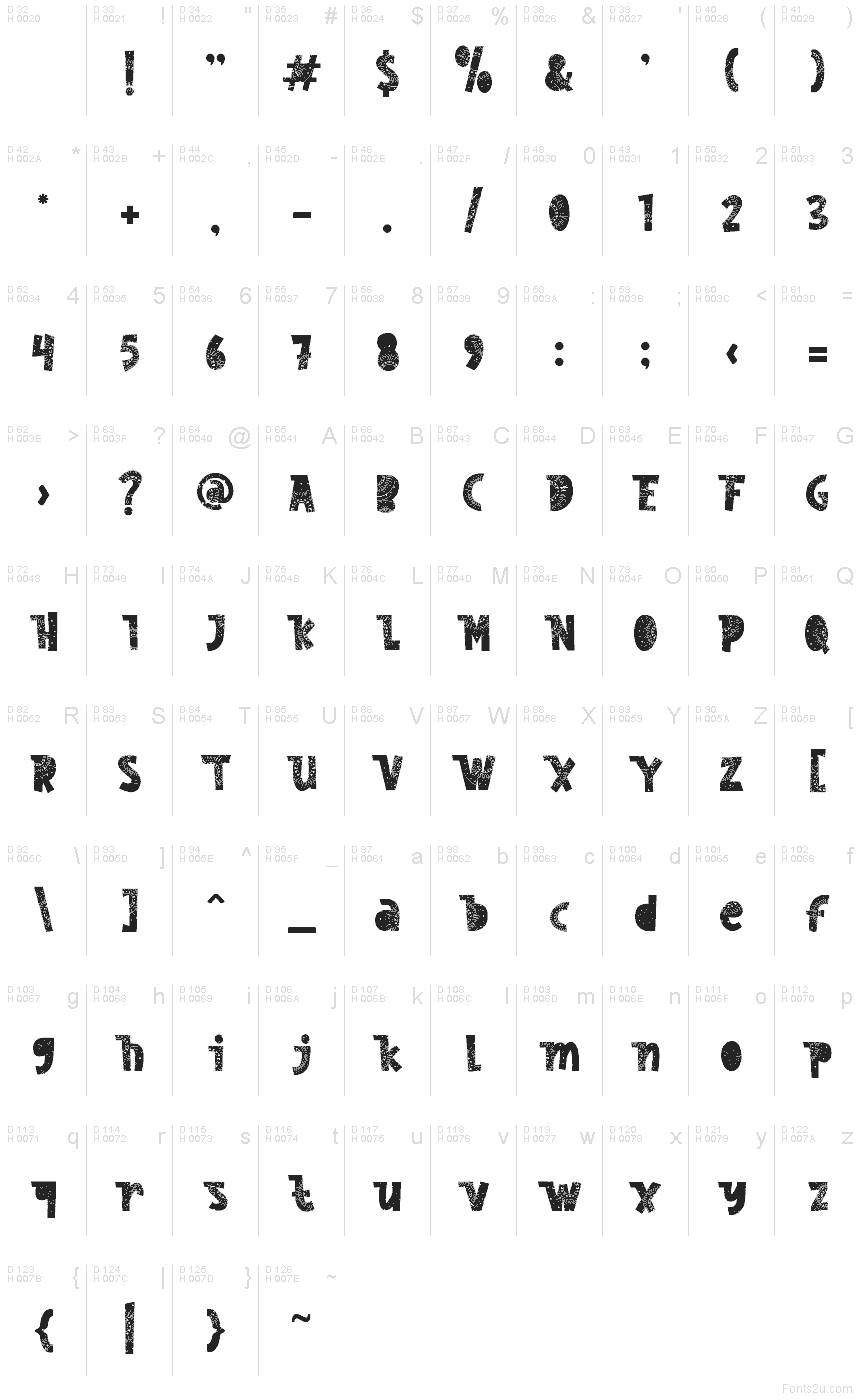
Nordic Whimsy Two
Nordic Whimsy Two font by PutraCetol Studio is a decorative display font inspired by Nordic art forms and nature’s organic motifs. Nordic Whimsy Two is a bold font characterized by filled letters, the best choice when aiming to create highly noticeable headings with written readable texts.
Used in branding and packaging projects for beauty and fashion-related products, lifestyle blogs, magazines, fonts in product presentations, signage designs for Scandinavian museums or historical sites, posters and banners, web pages headers, viral social media posts headlined with eccentric fonts!